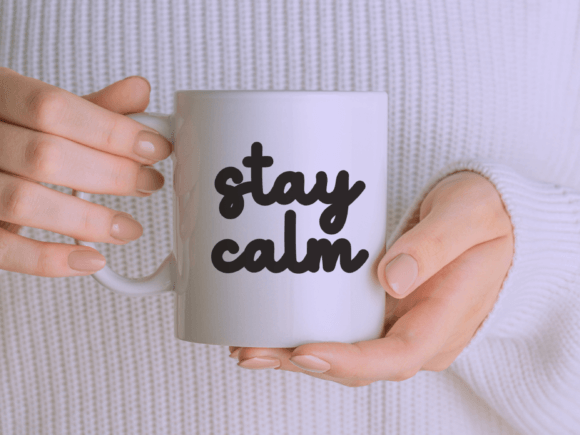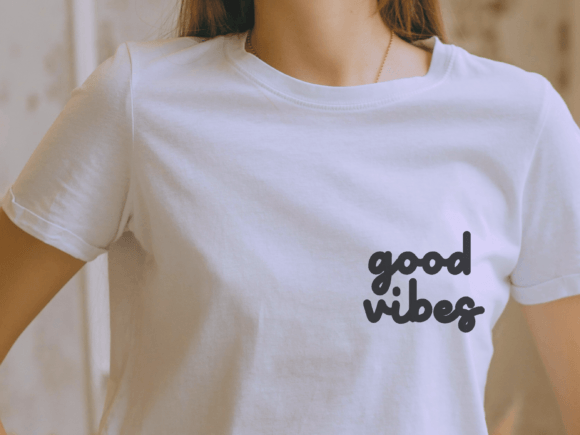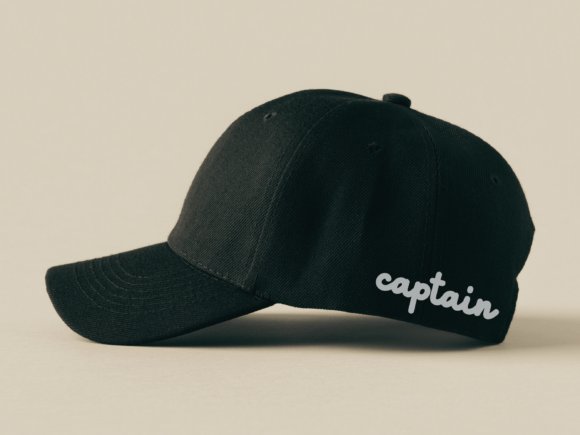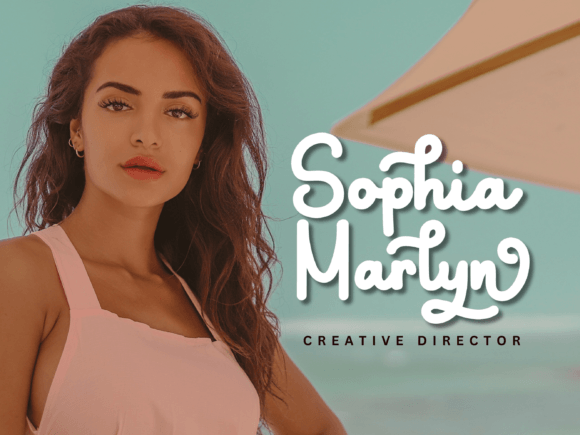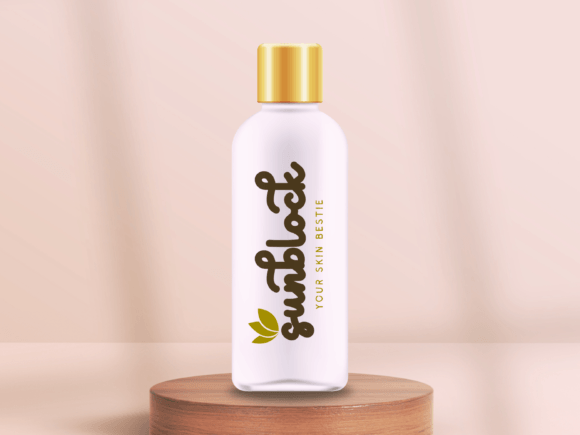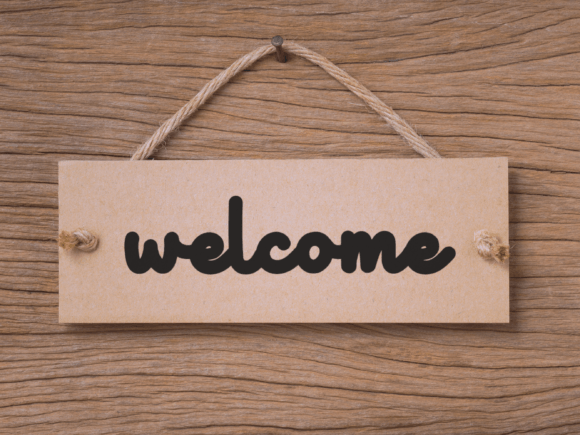
Introduction to Monoline Vintage Font
Have you ever been working on a creative project, pouring your heart and soul into every detail, only to realize that something’s missing? A subtle touch that elevates your design from ordinary to extraordinary? That’s where the Monoline Vintage Font comes in – a game-changing addition to your design arsenal.
As a designer, you’re always on the lookout for high-quality resources that can help you bring your vision to life. The Monoline Vintage Font is a valuable asset for any creative project, offering a unique blend of elegance and sophistication that’s hard to find in other fonts. Its delicate balance of modesty and softness makes it a perfect fit for a wide range of designs, from elegant invitations to modern logos.
Key Features of Monoline Vintage Font
- High-quality, elegant design perfect for creative projects and designs
- Features a transparent background, allowing for easy layering and customization in your design
- Includes a range of characters, including uppercase and lowercase letters, numbers, and special characters
- Designed with a unique monoline style, giving your designs a touch of sophistication and elegance
Honest Review: Monoline Vintage Font
As a designer, I’m always on the lookout for high-quality design resources to elevate my creative projects. The Monoline Vintage Font is one such resource that caught my attention, and I’m excited to share my honest review with you.
- ✨ Elegant and sophisticated design that adds a touch of vintage charm to any project.
- ✨ High-quality vector format, making it easily scalable and versatile for use in various design applications.
- ✨ Transparent background, allowing for seamless integration with other design elements.
- ⚠️ Limited character set, which may not be suitable for lengthy text-based projects.
- ⚠️ May not be as customizable as other fonts, due to its vintage aesthetic.
Overall, I’m impressed with the Monoline Vintage Font’s design and versatility. While it may have some limitations, it’s a great addition to any designer’s toolkit. If you’re looking for a high-quality font to add a touch of elegance to your creative project, I’d definitely recommend giving this a try.
Tips for Getting the Most Out of Monoline Vintage Font
Use Monoline Vintage Font with a transparent background for a high-quality design that stands out.
Combine Monoline Vintage Font with other design elements to create a unique and eye-catching visual identity.
Monoline Vintage Font is ideal for:
Branding and marketing materials
Photography captions and quotes
Yes, the Monoline Vintage Font is available with a transparent background, making it ideal for use on various backgrounds, including images and videos. This feature allows you to easily overlay the font on top of other design elements, giving you more creative control over your project.